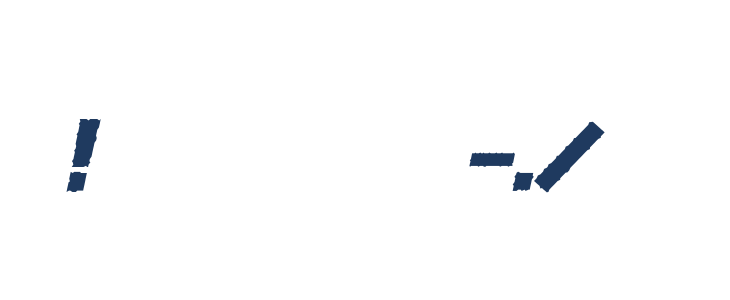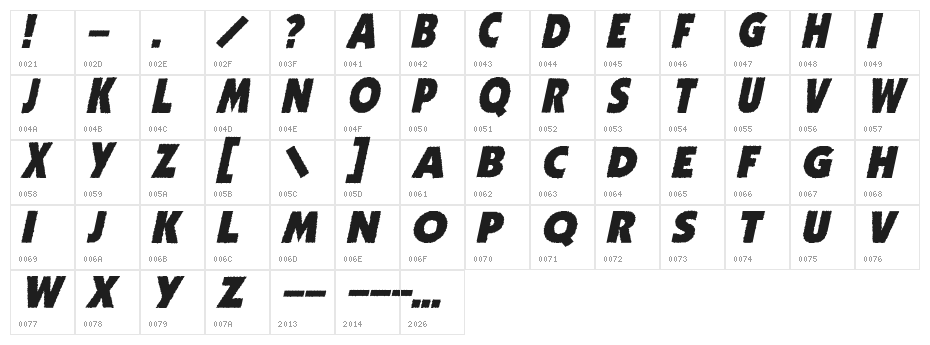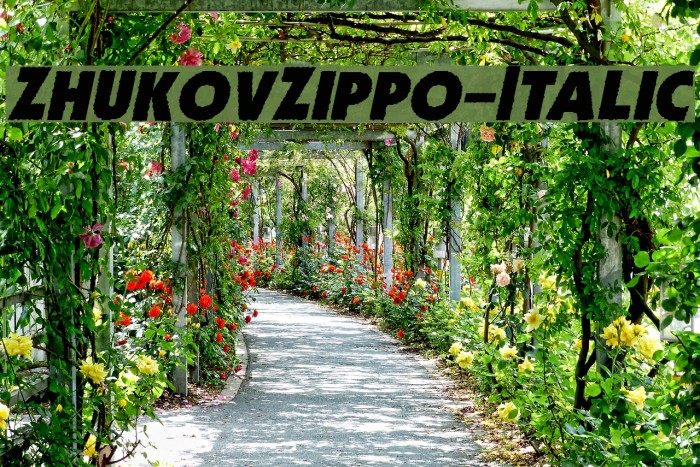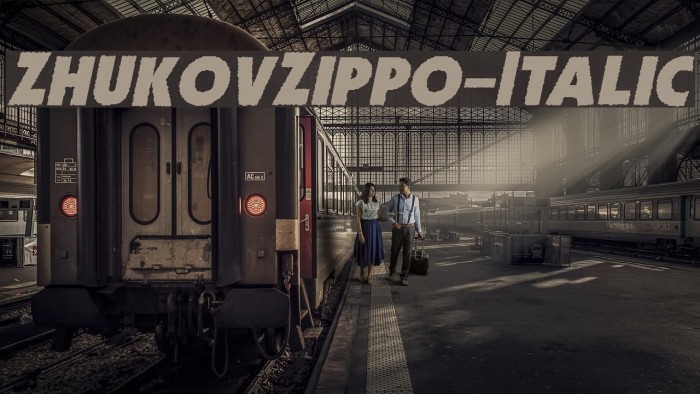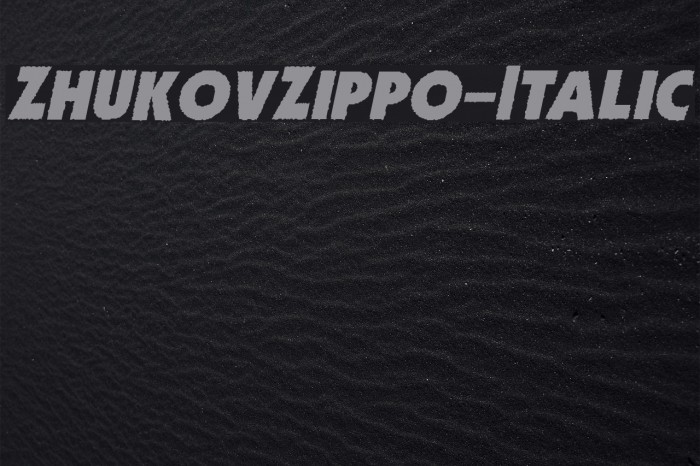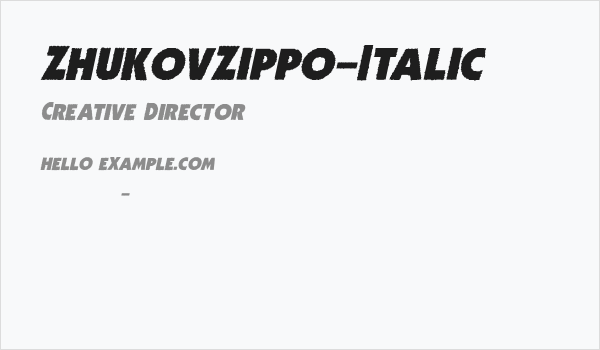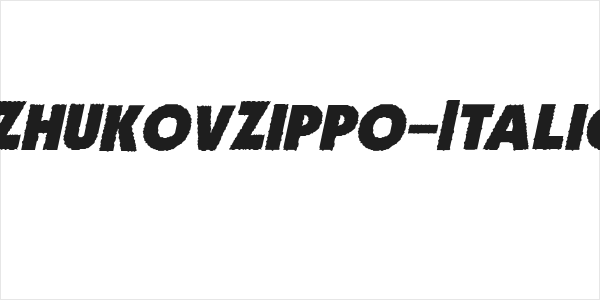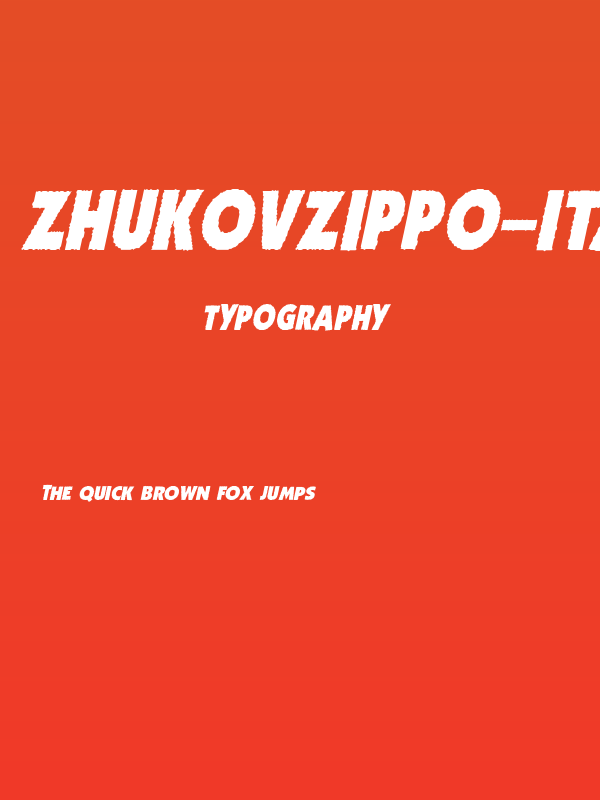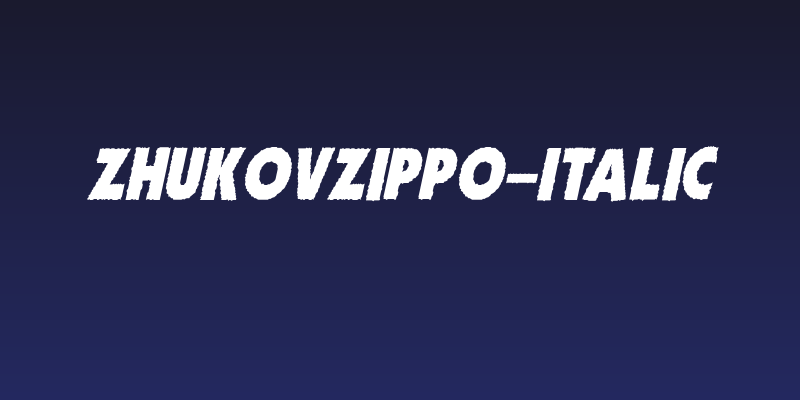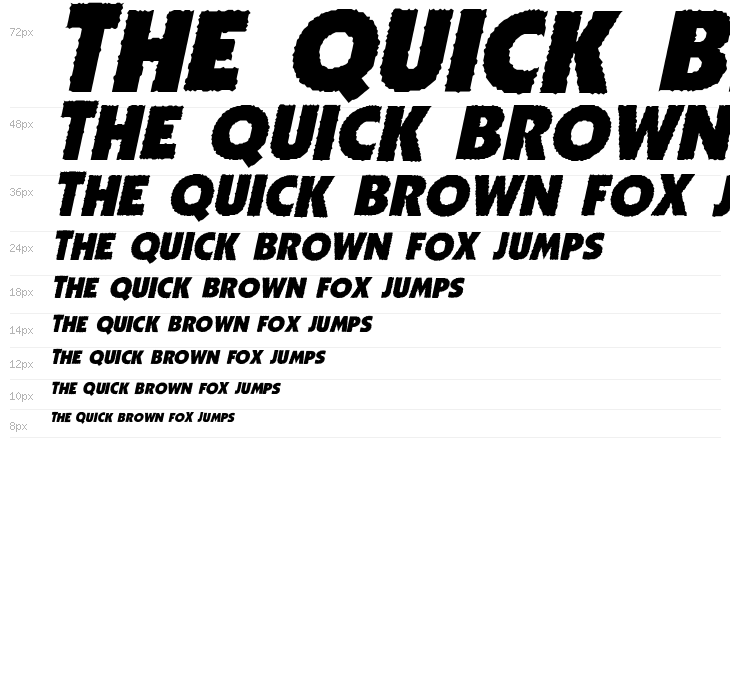
ZhukovZippo-Italic Font
ZhukovZippo-Italic Description
This font features a bold and dynamic style with a distinct italic slant, giving it a sense of motion and energy. The characters are robust and impactful, with a slightly condensed appearance that enhances its boldness. The strokes are thick and consistent, providing a strong visual presence. The overall design is modern and assertive, making it suitable for attention-grabbing applications. The uppercase letters are particularly striking, with sharp angles and a clean finish. The punctuation marks maintain the same bold and italicized characteristics, ensuring uniformity across the font.
| Proposed Projects | Ideal for headlines, posters, branding, and any design requiring a strong visual impact. |